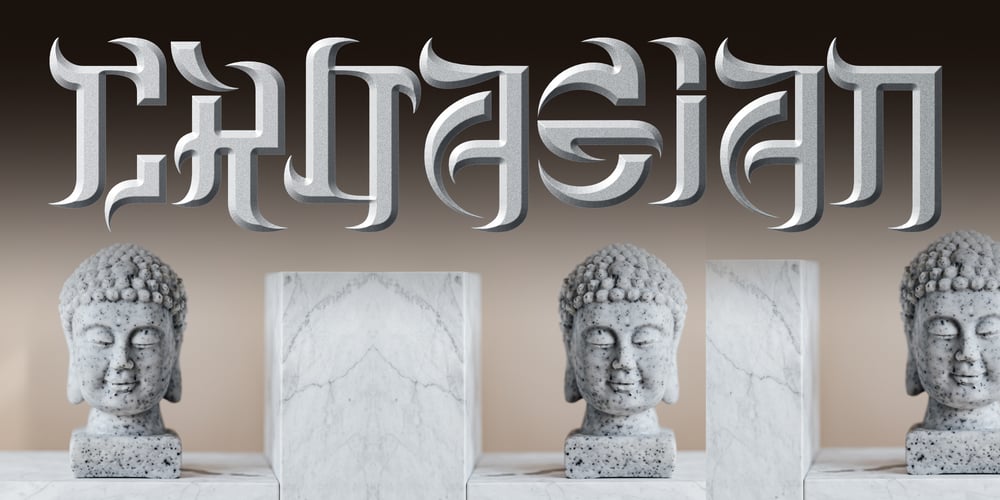
Croasian Font Family was designed by Michael Kovacevich and published by MKGD. Croasian contains 1 styles and family package options. The main reason I wanted to design this font was because I really didn’t like how poorly some fonts tried to mimic an Oriental appearance. Trying to make western words appear Asian with a font composed of brush strokes is almost always doomed to failure. However, I find Croasian works extremely well with one syllable words that are Asian sounding. A good font to have if you want to express an Asian name or business phonetically in a western alphabet while still retaining an Asiatic feel.Croasian has a glyph count of 397 and supports the following languagesAfrikaans, Albanian, Asu, Basque, Bemba, Bena, Bosnian, Catalan, Chiga, Colognian, Cornish, Croatian, Czech, Danish, Embu, English, Esperanto, Estonian, Faroese, Filipino, Finnish, French, Friulian, Galician, German, Gusii, Hungarian, Icelandic, Indonesian, Irish, Italian, Kabuverdianu, Kalaallisut, Kalenjin, Kamba, Kikuyu, Kinyarwanda, Latvian, Lithuanian, Low German, Lower Sorbian, Luo, Luxembourgish, Luyia, Machame, Makhuwa-Meetto, Makonde, Malagasy, Malay, Maltese, Manx, Meru, Morisyen, North Ndebele, Norwegian Bokmål, Norwegian Nynorsk, Nyankole, Oromo, Polish, Portuguese, Romanian, Romansh, Rombo, Rundi, Rwa, Samburu, Sango, Sangu, Scottish Gaelic, Sena, Shambala, Shona, Slovak, Slovenian, Soga, Somali, Spanish, Swahili, Swedish, Swiss German, Taita, Teso, Turkmen, Upper Sorbian, Vunjo, Walser, Zulu